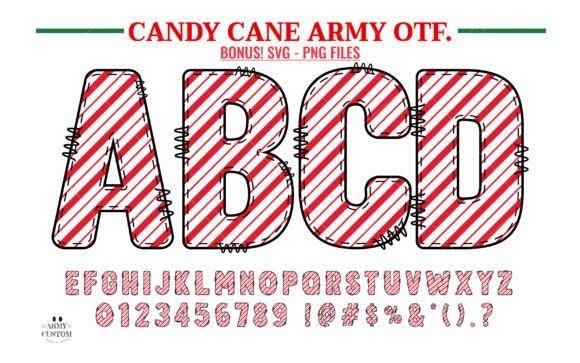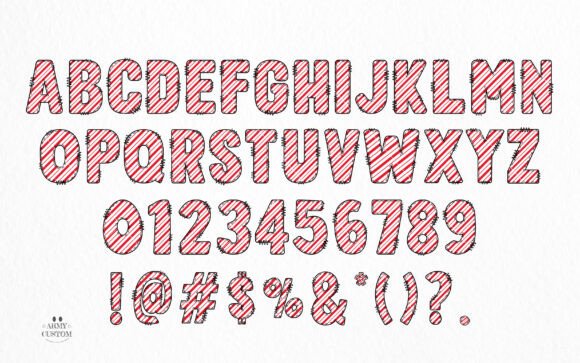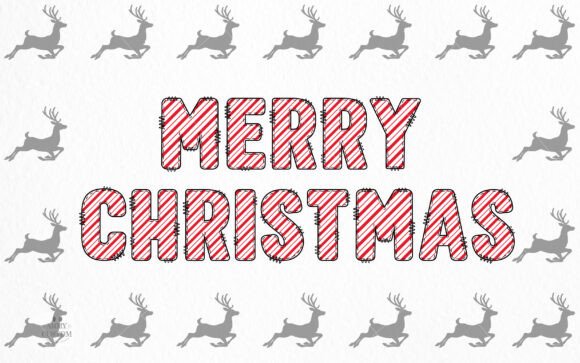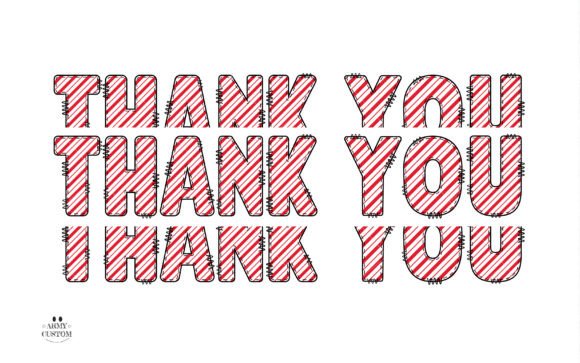
Candy Cane Army Font
Introducing Candy Cane Christmas Font — a delightful infusion of color that invigorates your artistic toolbox. Exuding a vibrant, festive joie de vivre, this font elevates your designs by encapsulating the jubilant spirit of holiday cheer. Capture the essence of the season with Candy Cane Christmas Font, your go-to choice for evoking that irreplaceable warmth and merriment.